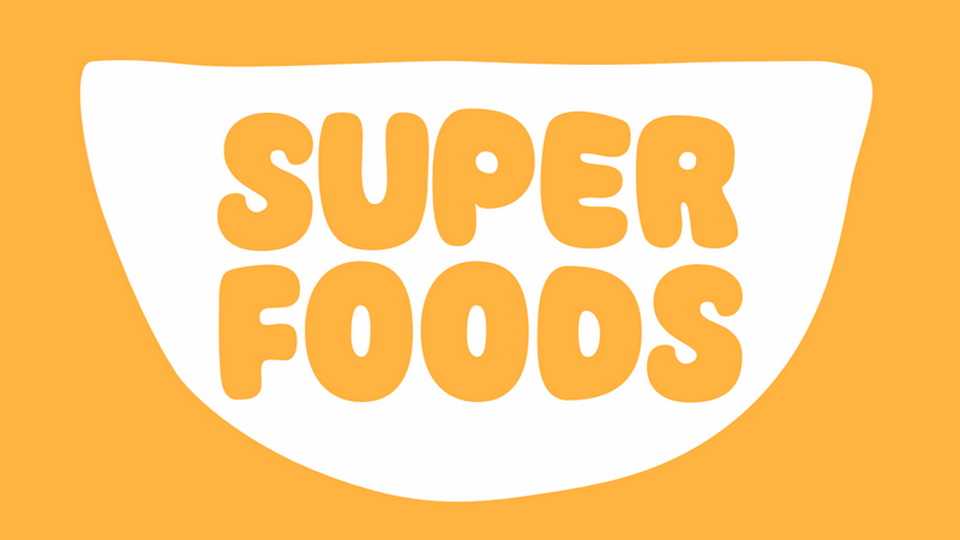
Download Super Foods font, a handcrafted cartoon typeface charged with a bold yet fun vibe. Add an eye-catching and playful touch to your designs with Super Foods font.